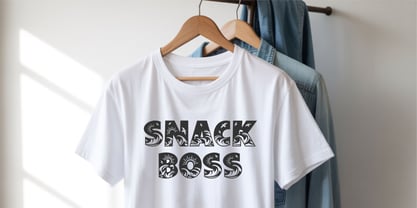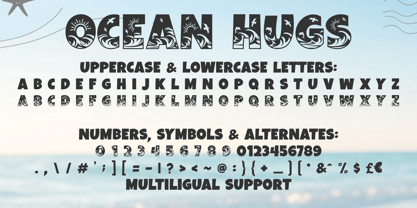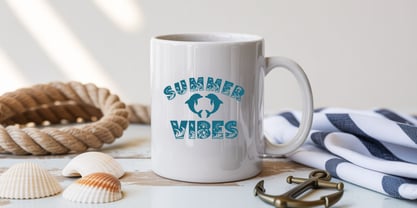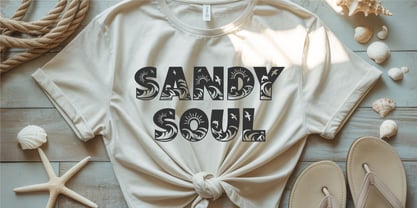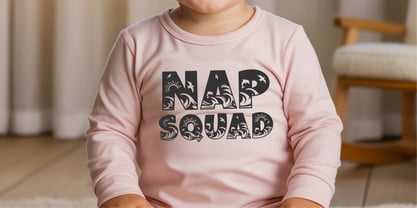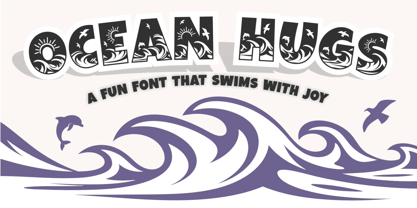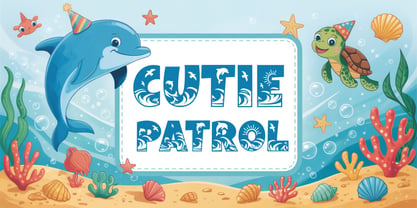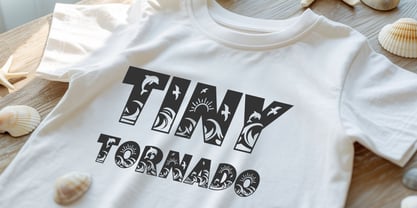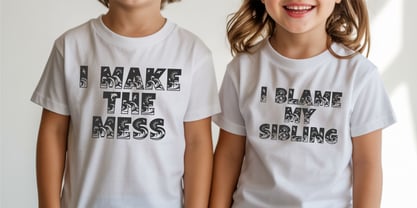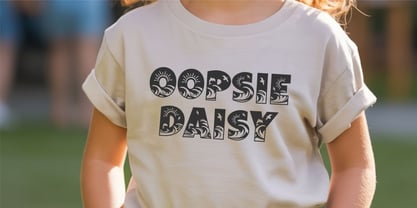
Ocean Hugs
Ocean Hugs is a vibrant, sea-inspired display font that brings sunshine, waves, and playfulness to your creative world. Each letter is crafted with charming marine details—think playful dolphins, soaring birds, crashing waves, and radiant sunbursts—all nestled within bold, easy-to-read characters. Whether you're designing for children or just want to add a joyful ocean vibe to your work, this font will instantly make a splash!
Its whimsical aesthetic makes it perfect for a variety of projects, including shark birthday shirts, summer t-shirts, ocean nursery wall art, beach-themed party invitations, teacher resources, classroom signs, Procreate quotes, and other sea-themed crafts. The playful curves and illustrative elements turn every word into a miniature ocean scene, encouraging fun, learning, and creativity.
Ocean Hugs includes uppercase and lowercase letters, numbers, punctuation, and symbols, as well as multilingual character support, making it as functional as it is fun. It’s easy to use across a range of design software and craft tools, from digital illustration platforms to vinyl cutting machines.
Whether you're working on coastal decor, beachy branding, or educational printables, Ocean Hugs brings the magic of the sea straight into your project. Dive in and let your creativity swim with joy!